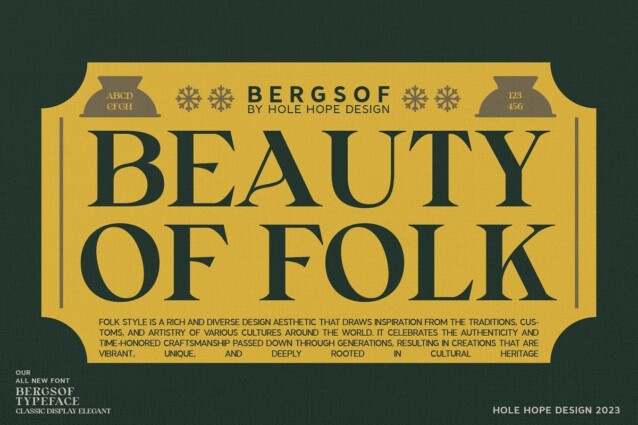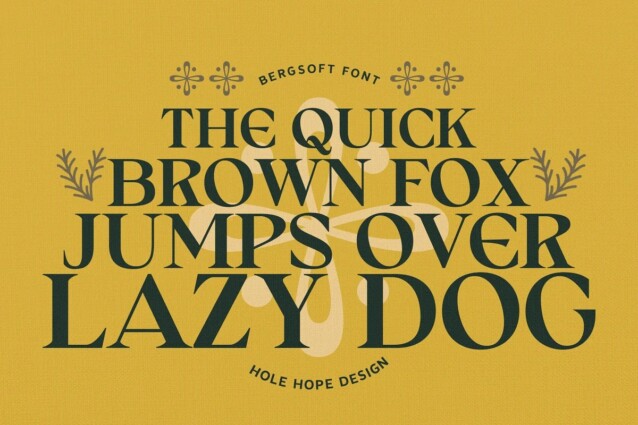
Bergsof Font
Bergsof Font is a display serif font designed by Hole Hope Design with a modern vintage twist, ideal for branding, headlines, and packaging. It seamlessly blends the elegance of serifs with classic air. This font is suitable for graphic designs such as logotypes, merchandise, printed stickers, and other branding needs.